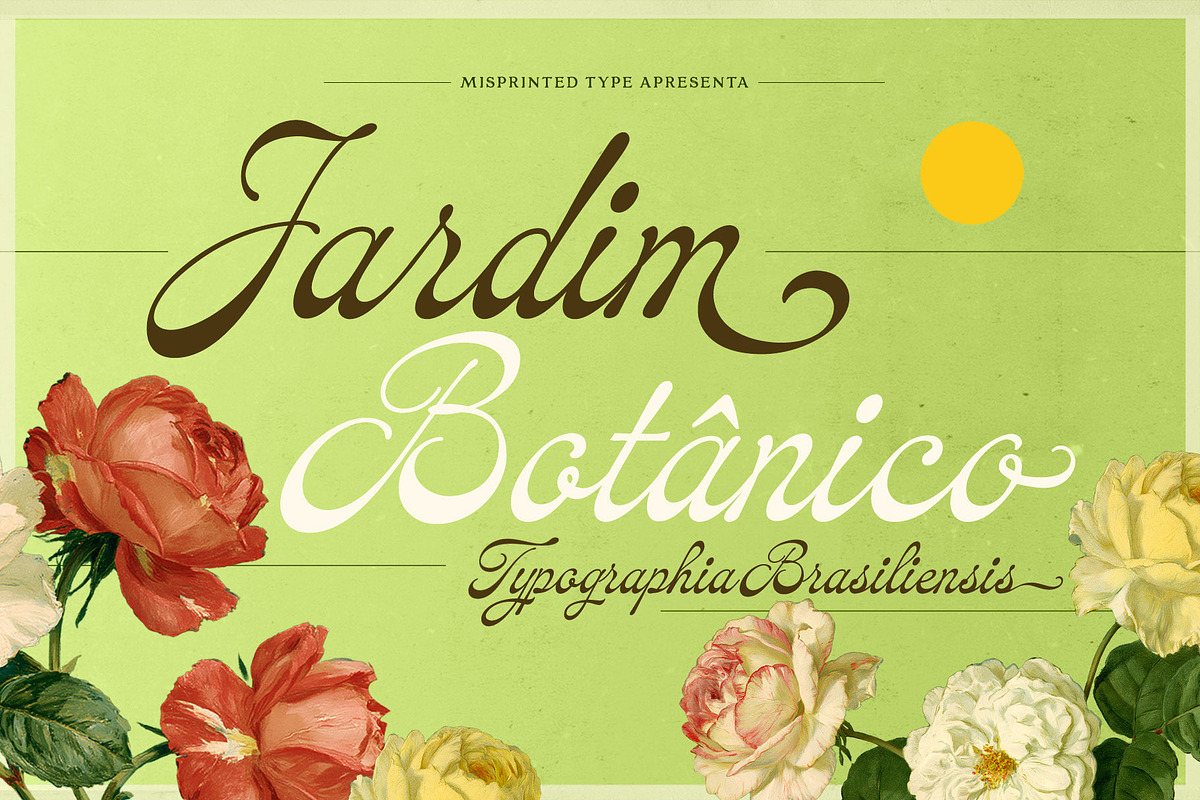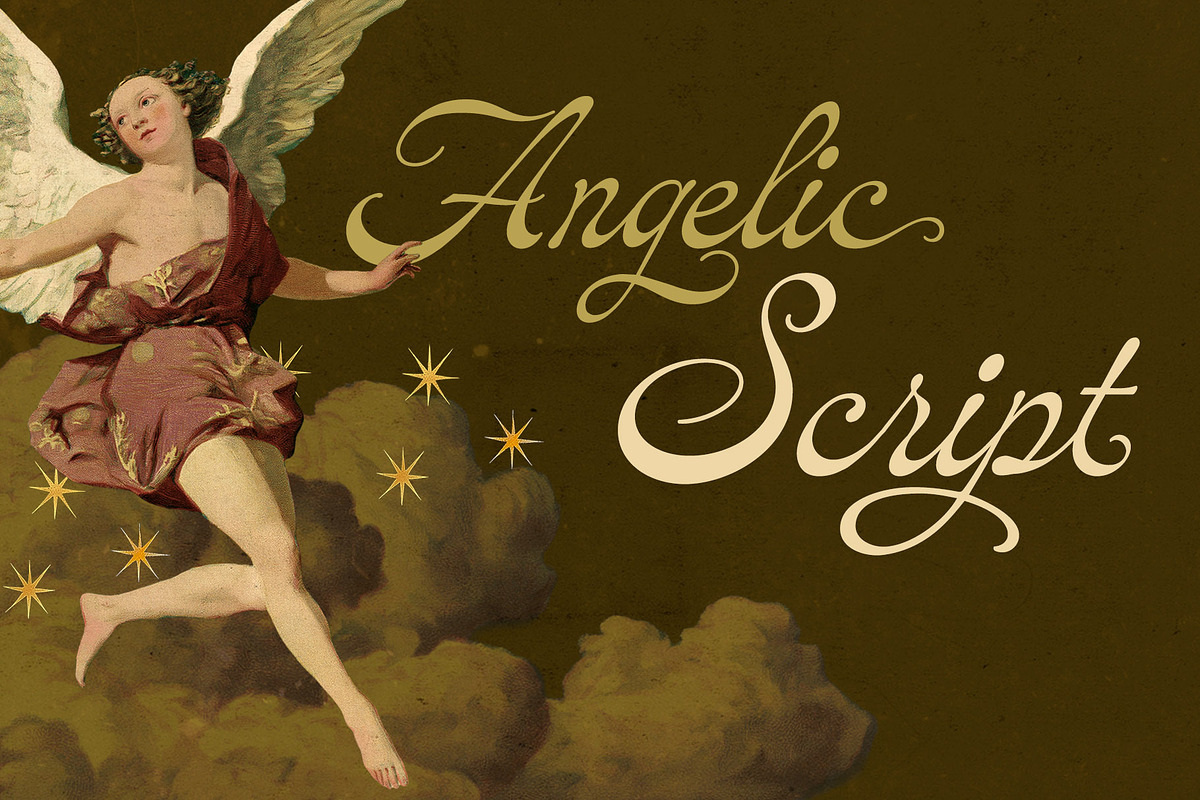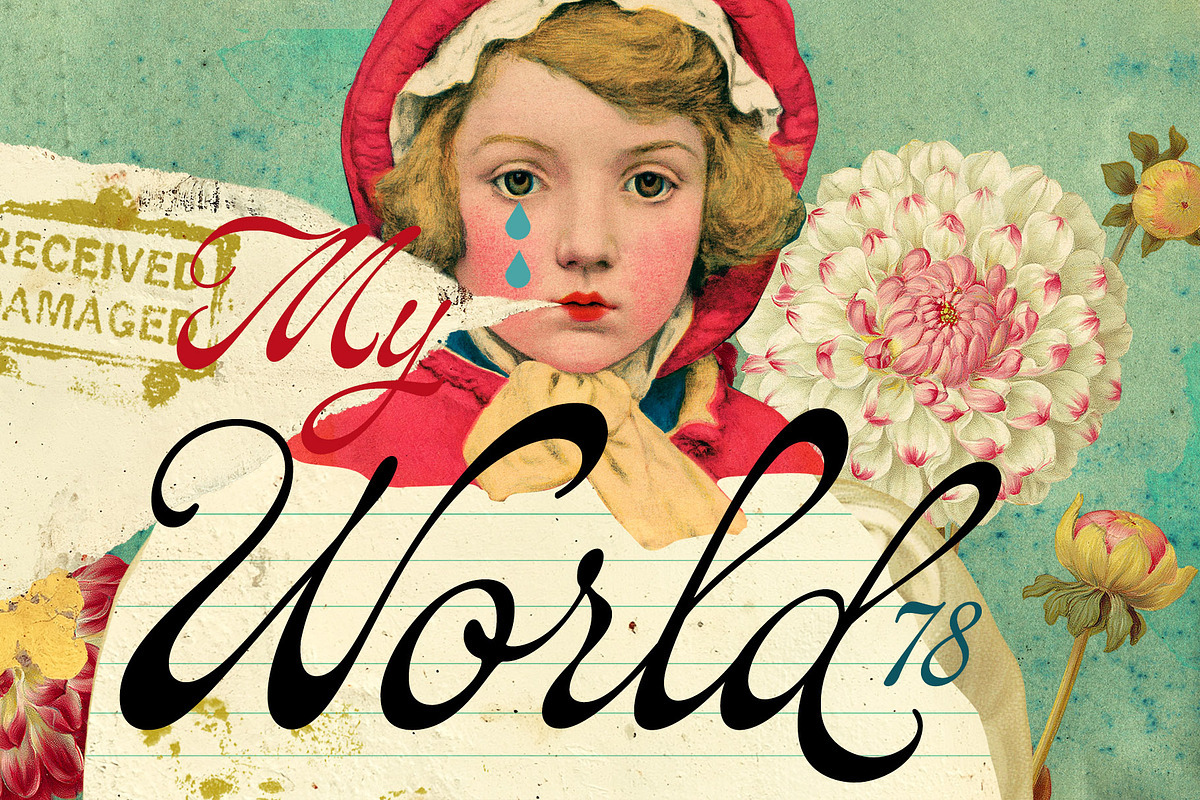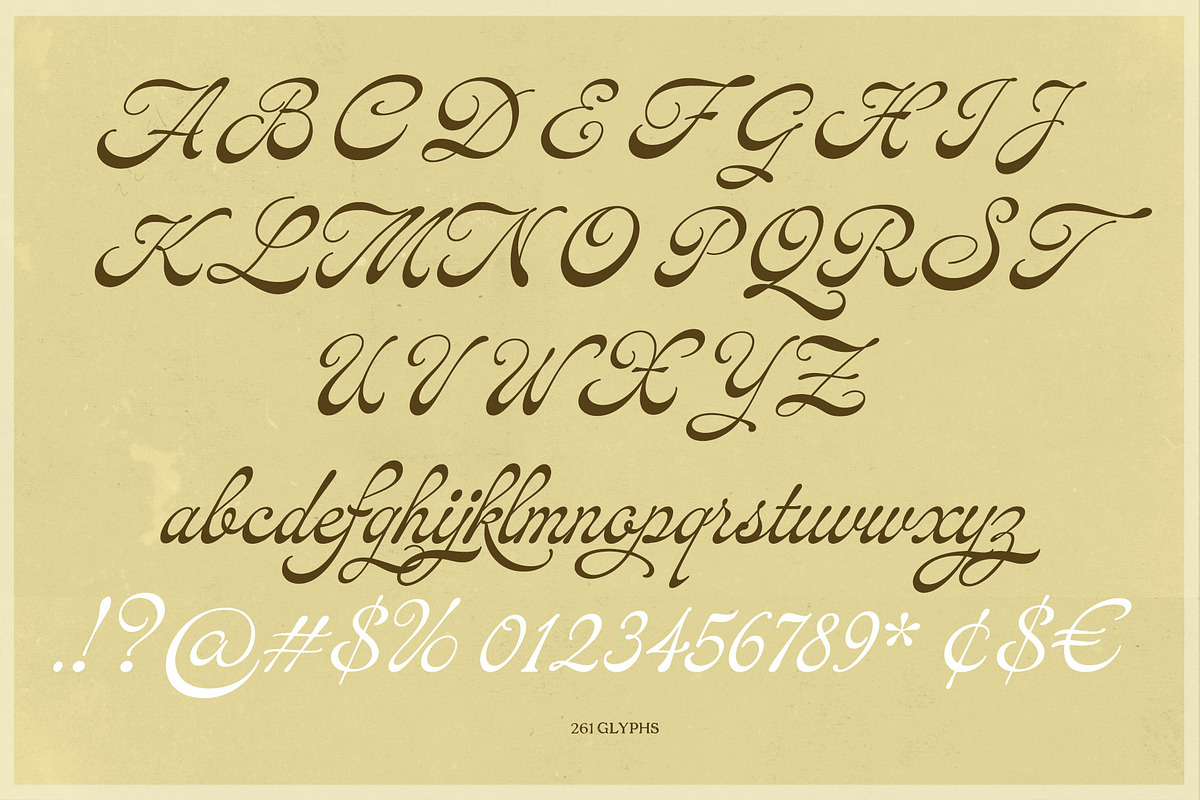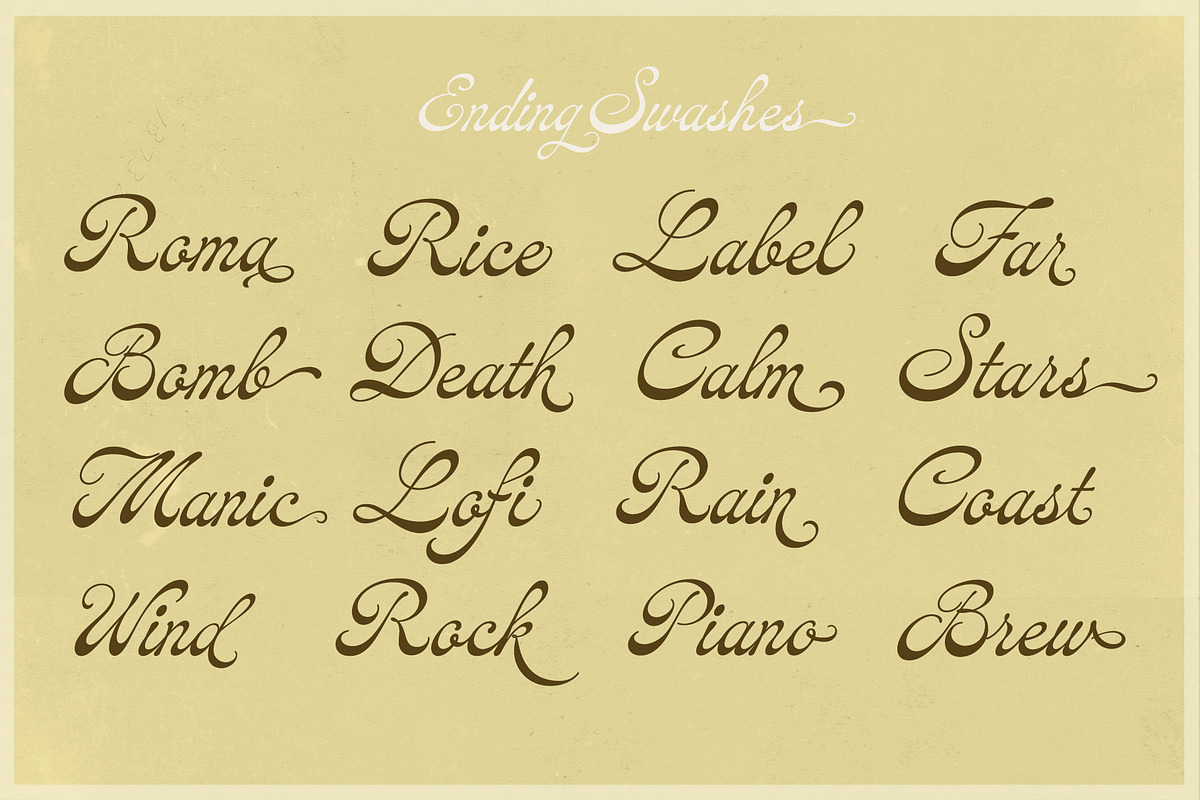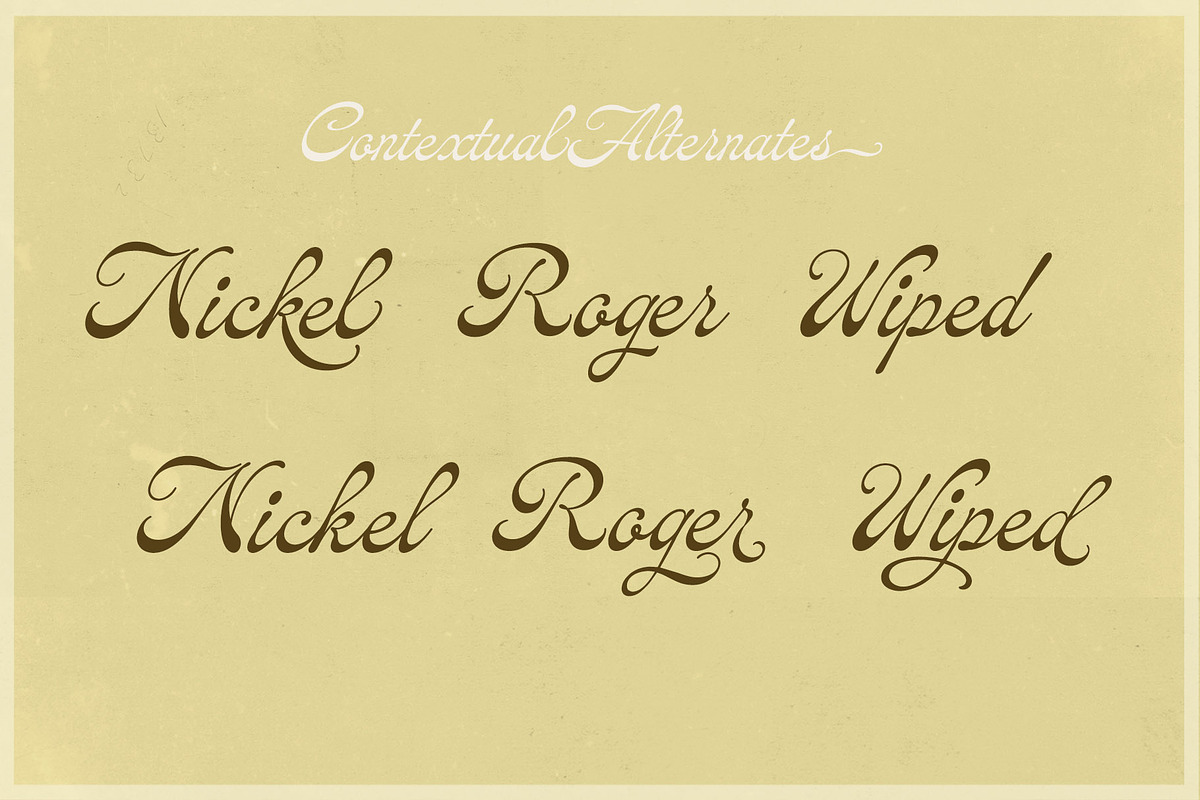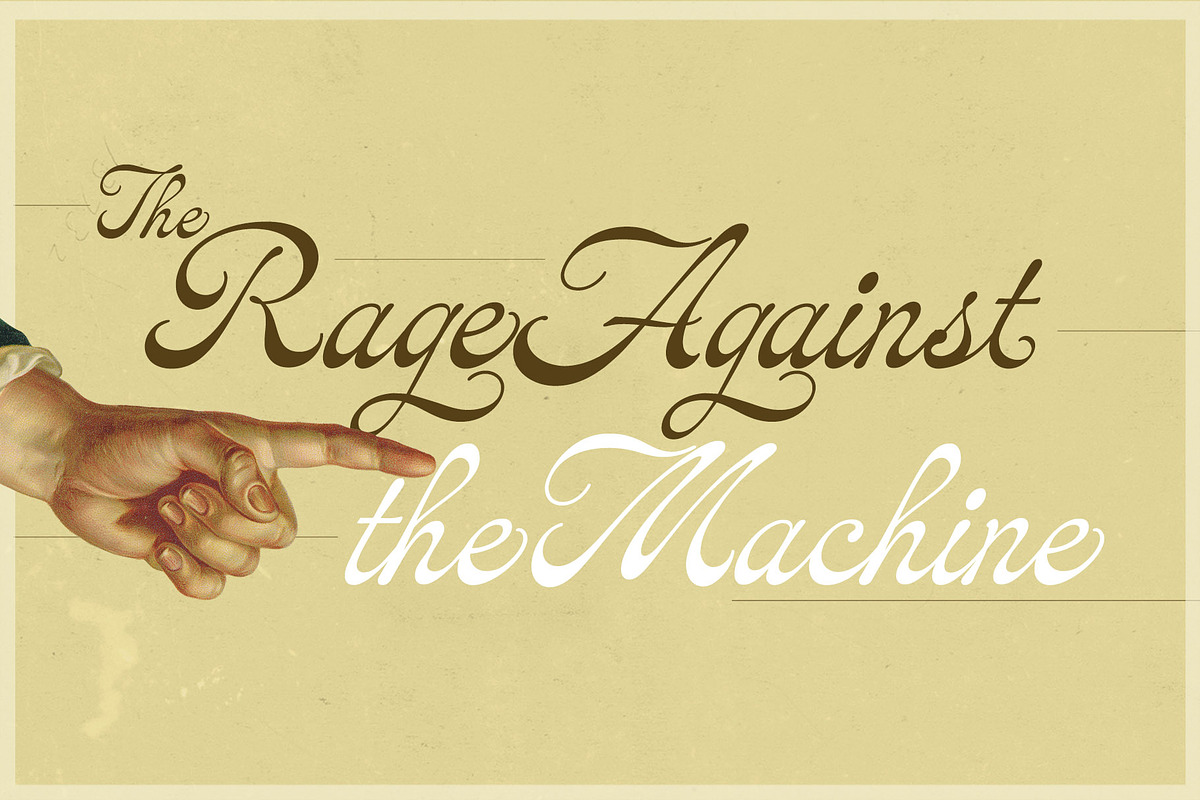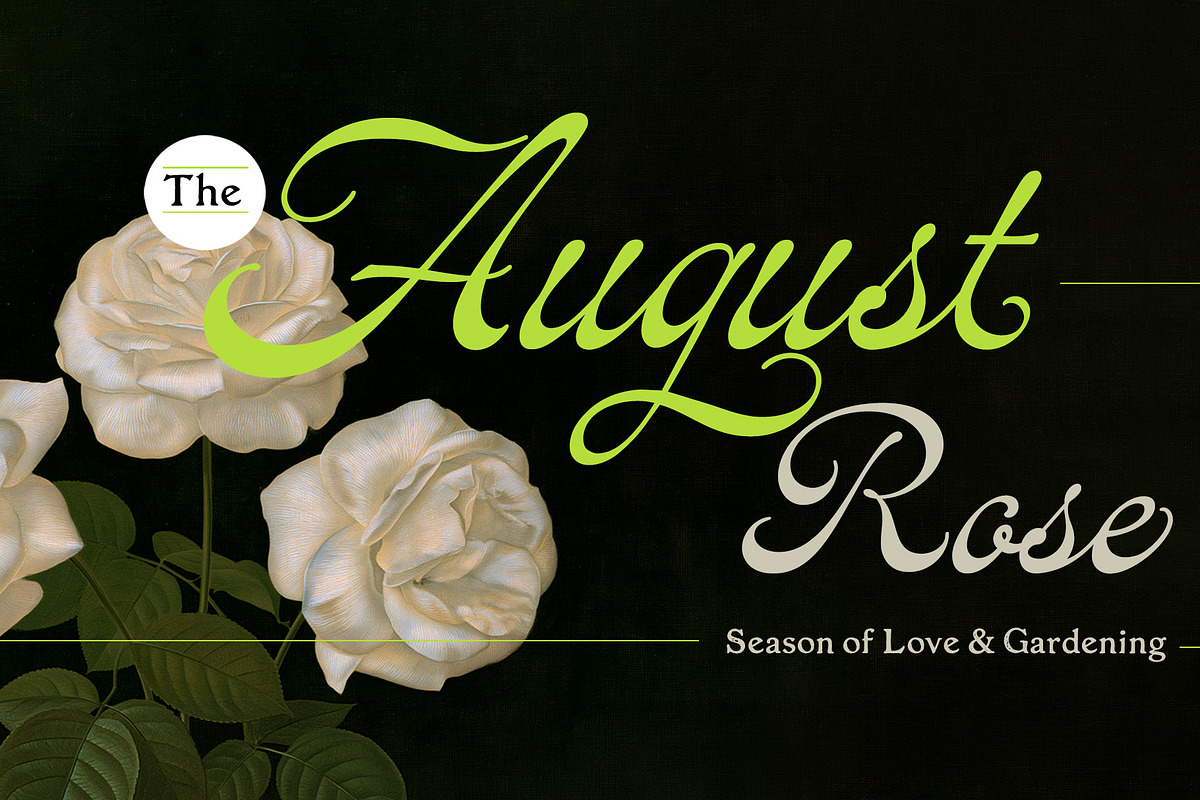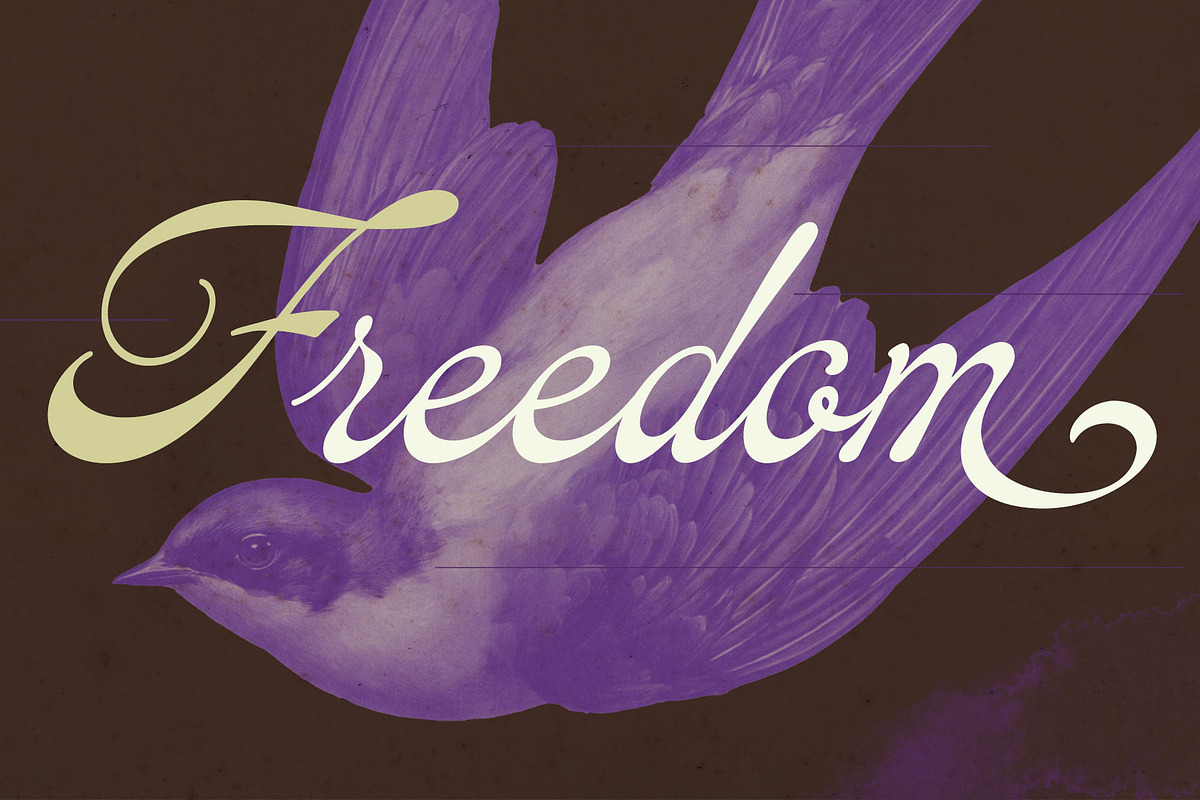
Jardim Botânico
Jardim Botânico is a vintage script typeface inspired by the elegant lettering found on botanical lithographs, apothecary labels, and scientific illustrations from past centurues. Designed with a distinctive reverse contrast, it captures the refinement of traditional penmanship while offering a personality that feels both delicate and unmistakable. Graceful curves, flowing connections, and carefully balanced proportions give the font a timeless charm that feels equally at home in the past and the present.
The beautifully ornamented capitals and elegant small caps bring sophistication to every composition, while contextual alternates and ending swashes allow words to flow naturally with the richness and variation of genuine handwriting. With 261 glyphs, Jardim Botânico offers the flexibility to create refined typography without sacrificing authenticity.
Whether you're designing vintage packaging, botanical illustrations, wine labels, branding, book covers, invitations, or editorial work, Jardim Botânico brings the romance and elegance of antique calligraphy to every project.